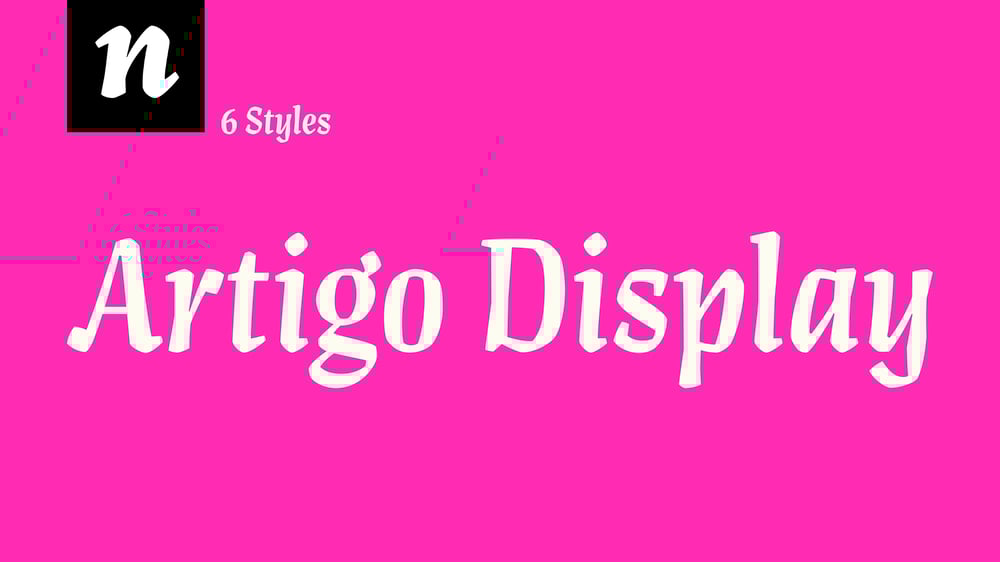
Artigo Display Font Family was designed by Joana Correia and published by Nova Type Foundry. Artigo Display contains 6 styles and family package options. Artigo Display is the odd sister of Artigo text typeface. It is a contemporary interpretation of handwriting shapes in a display version of the italic. It is more expressive and it has its own personality. It was renovated with five new weights that bring more flexibility to use the typeface in different mediums. Artigo Display has won a Certificate of Typographic Excellence from the Type Directors Typeface Competition in January 2018.